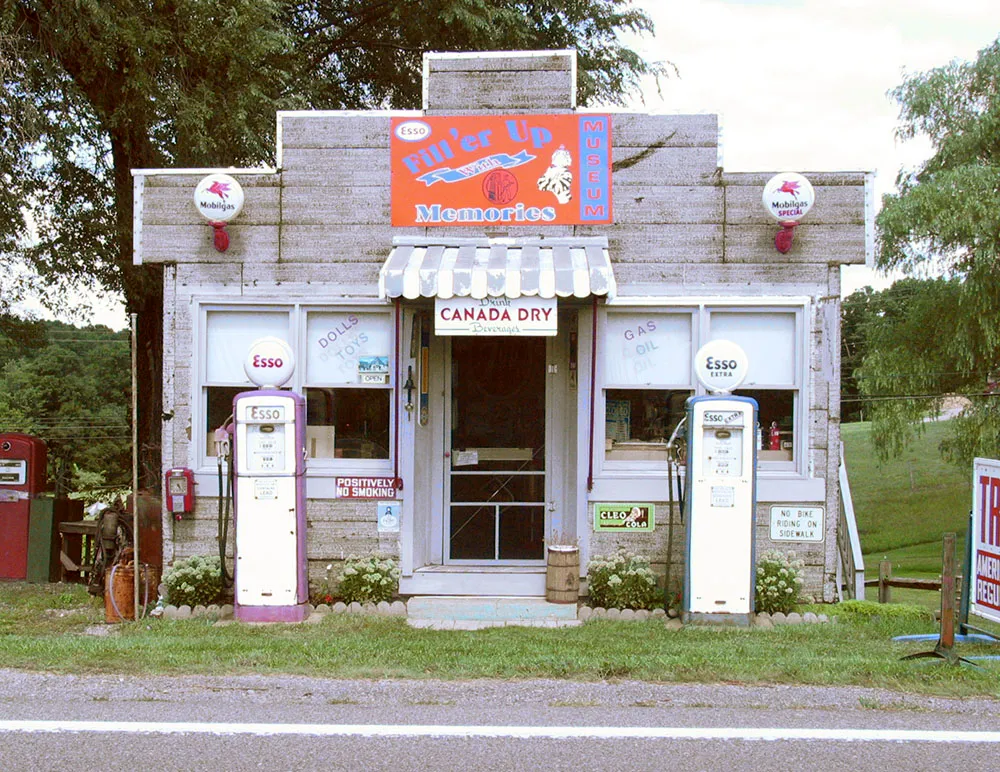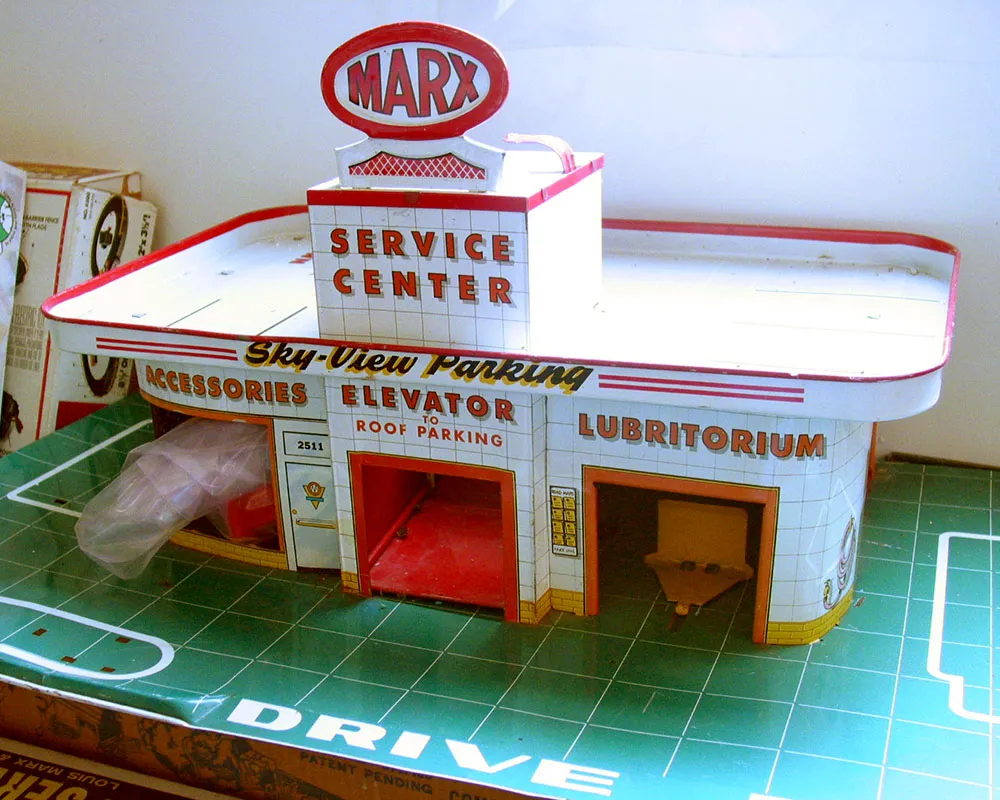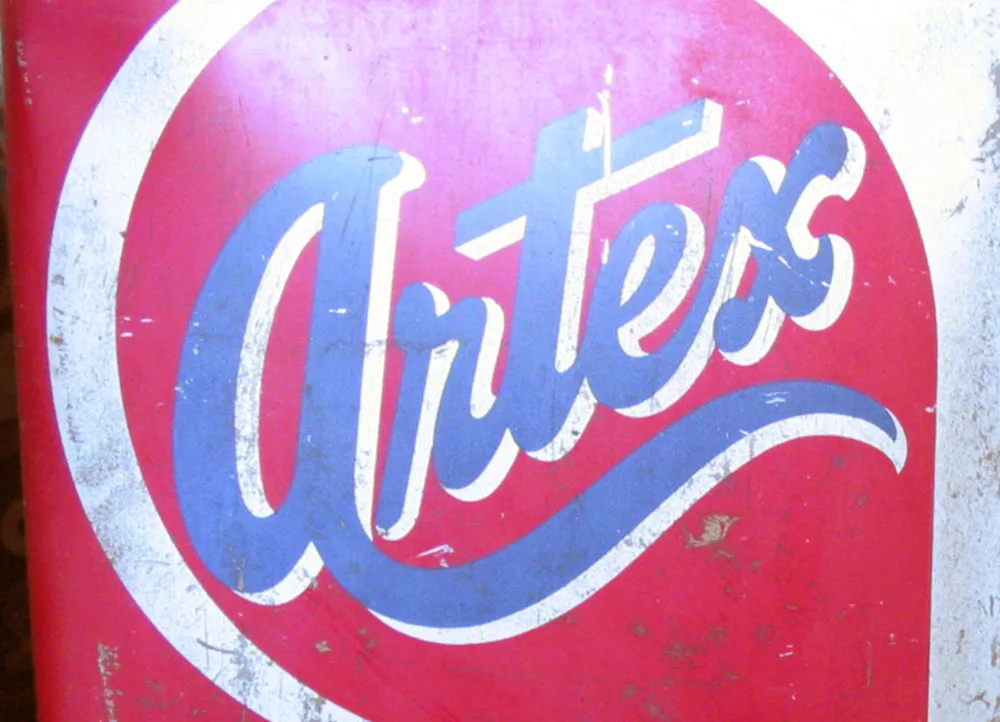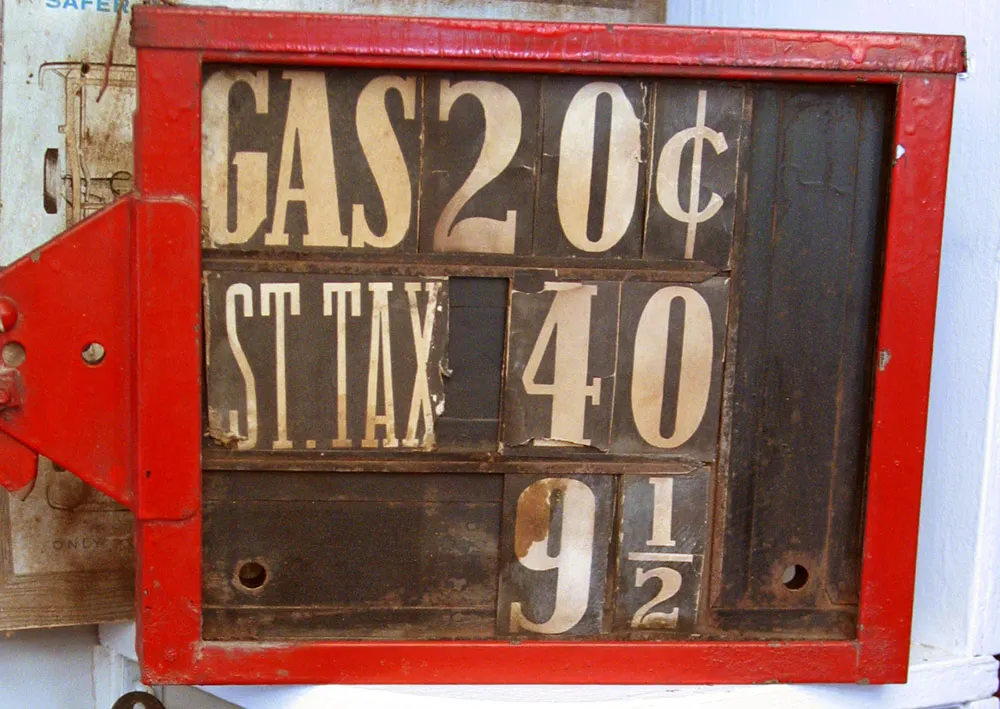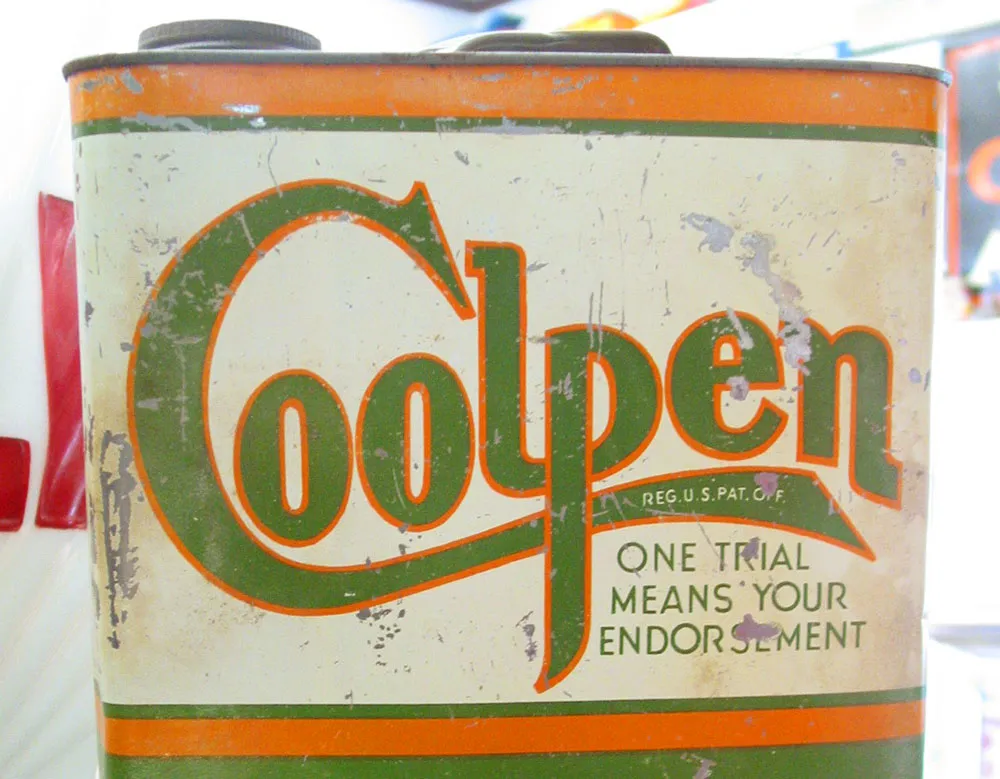
Fill ‘er Up with Memories
Recently, my family and I paid a visit to West Virginia for my in-laws’ anniversary. While we were there, my partner, Pat, came across a little place called Fill ‘er Up with Memories in Berkeley Springs. I wasn’t with her at the time, but happily she had our camera with her and, knowing how I love this kind of thing, took some photos.
The place itself is a kind of museum in which the proprietor, David Weidemoyer, has put on display his personal collection of “petroliana” as well as his wife’s doll collection and an assortment of toys. It’s not a store, but he’s interested in selling some of the petroliana stuff. He’s become more interested in enameled signs.
When I was a little kid, I had a toy gas station very similar to this. It was made of lithographed tin and plastic. I seem to recall spending a lot of time with it. Kids are strange little creatures.
Some oil cans. I love the script lettering on the Artex can. Not a bit of type on any of these—it’s all hand-lettering.
Old gas price sign. Dream on.